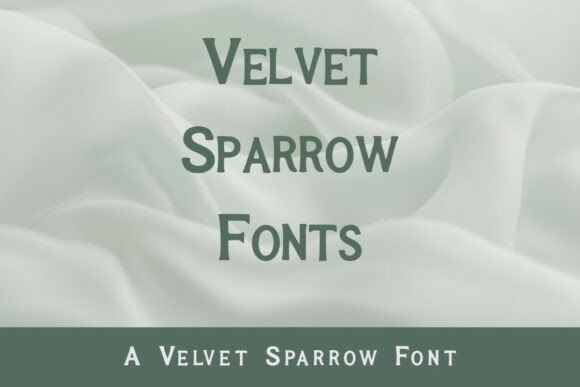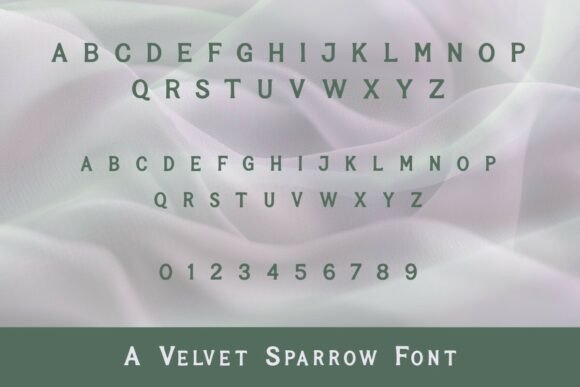
The Perfect Sign Font for a Standout Design
You know that moment when you’re brainstorming a new project and the font just clicks? It’s like the whole design falls into place, and you can’t wait to share it with the world. For designers, finding the right font can be a game-changer, and that’s exactly what the Best Sign Font does.
Built for high-visibility text, the Best Sign Font is a bold, rounded lettering style that’s perfect for signs, headers, labels, banners, and large-format designs where clarity is essential. With its smooth curves and even weight, this font reads cleanly at a distance while maintaining a soft, approachable personality.
Whether you’re working on a craft project, storefront signage, or social media graphics, the Best Sign Font is a versatile choice for designers who want confident, easy-to-read lettering that makes a strong presence without sharp edges.
Key Features of “Best Sign Font”
- Includes 300+ glyphs to cover a wide range of languages and characters, making it ideal for international signage.
- Includes a range of ligatures and swashes to add a touch of elegance and sophistication to your signage.
Best Sign Font Review
Overall, I’m pretty impressed with the Best Sign Font. Here’s what I like about it:
- ✨ The font is highly customizable, with a wide range of options for adjusting size, color, and style.
- ✨ The font is highly legible, even at small sizes, making it perfect for signage and other applications where readability is crucial.
- ✨ The font is also very versatile, working well for both digital and print applications.
- ⚠️ The font is not as comprehensive as some other font families, with limited support for non-English characters.
- ⚠️ Some users may find the font a bit too generic, lacking a unique personality or style.
- ⚠️ The font can be a bit too heavy-handed in its design, which may not be suitable for all applications.
Overall, I think the Best Sign Font is a solid choice for anyone looking for a clean, legible font for signage or other applications. While it may not be the most comprehensive or unique font family, it’s a reliable and easy-to-use option that gets the job done.
Tips for Getting the Most Out of the Best Sign Font
Here are some tips for getting the most out of the Best Sign Font:
- Use it for bold, eye-catching headlines
- Pair it with a clean, simple background
- Experiment with different font sizes and colors
The Best Sign Font is ideal for:
- Signage and posters
- Marketing materials (e.g. brochures, flyers)
- Event branding and signage